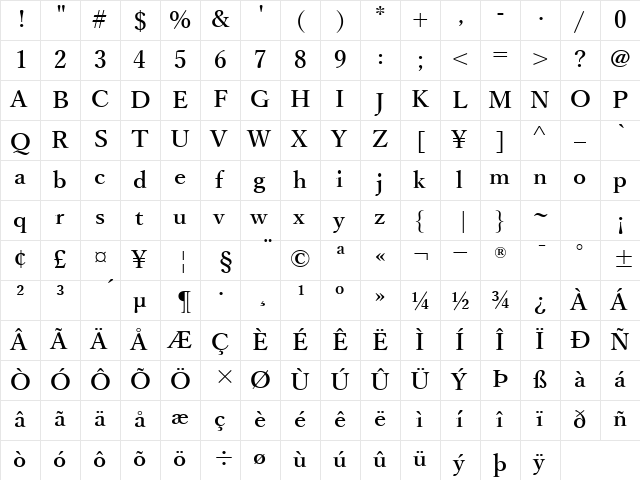
Yu Mincho Demibold Bold Font Preview
Yu Mincho Demibold Bold
Yu Mincho Demibold Bold Font Details
Design Context for Yu Mincho Demibold Typeface
Yu Mincho Demibold takes a measured approach to typography — its balanced proportions and neutral character make it a reliable workhorse for both digital and print work. The heavy weight commands attention and anchors typographic hierarchies.